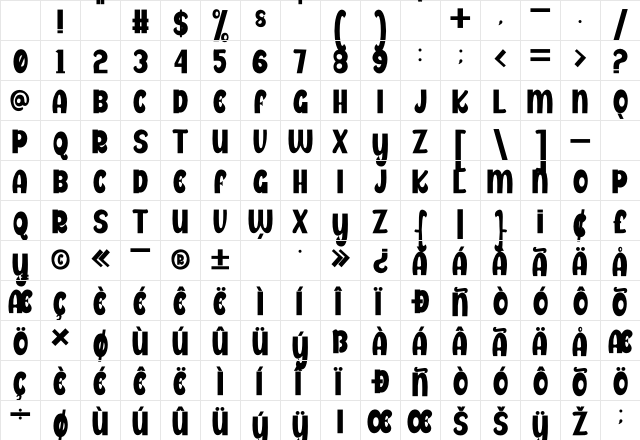
Complete Broder Regular glyph index. Displaying only characters natively supported by Broder Regular font.
Broder is a composed and adaptable typeface that performs quietly and consistently across a wide range of design contexts.